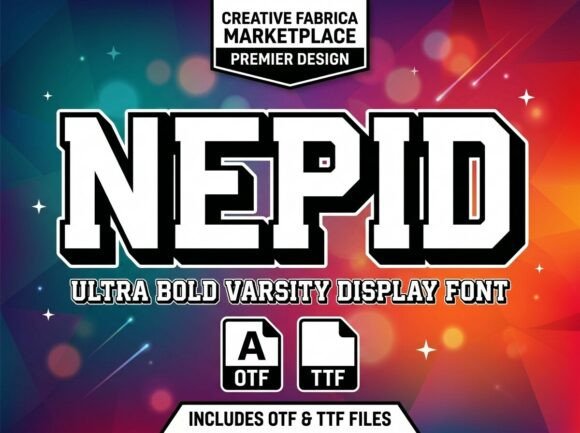
Introduction to Nepid Font
Score a victory for your designs with Nepid, a monumental display typeface that captures a “heroic-and-high-octane” soul.
This font features massive, slab-serif letterforms uniquely characterized by a rhythmic, hand-drawn 3D “layered” shadow and sharp, athletic chamfers that bridge the gap between classic collegiate sports and modern cinematic branding With its heavy structural weight and commanding personality, Nepid is the premier choice for independent e-sports team identities, high-impact athletic apparel, fitness club logos, and aggressive “bold-and-brawny” social media headers.
Key Features of Nepid Font
Why Choose Nepid Font?